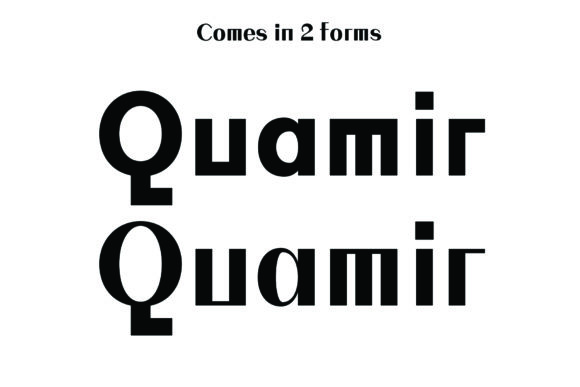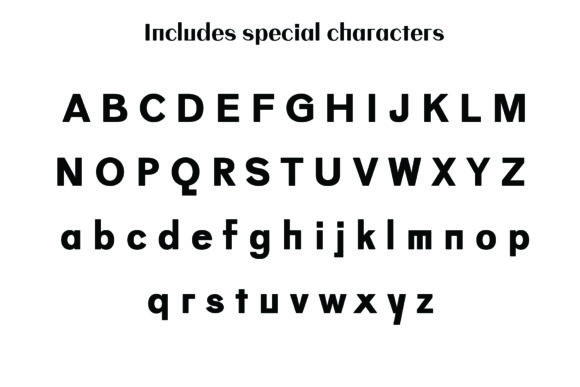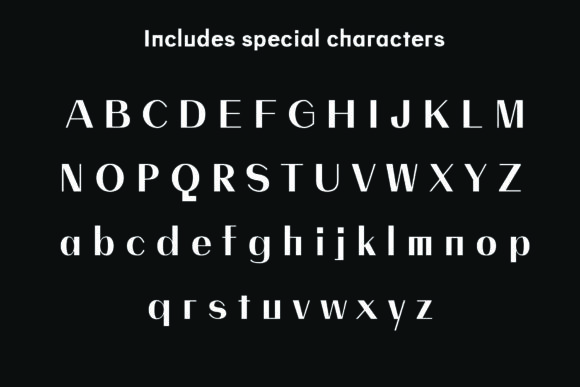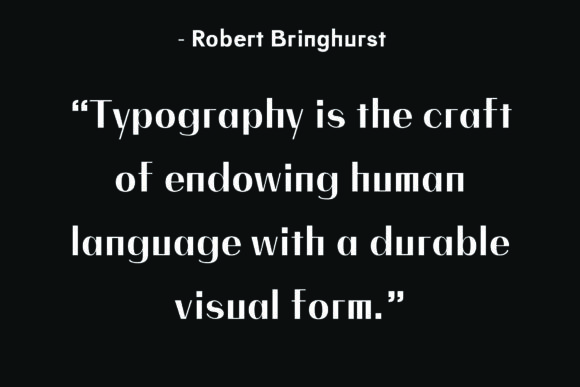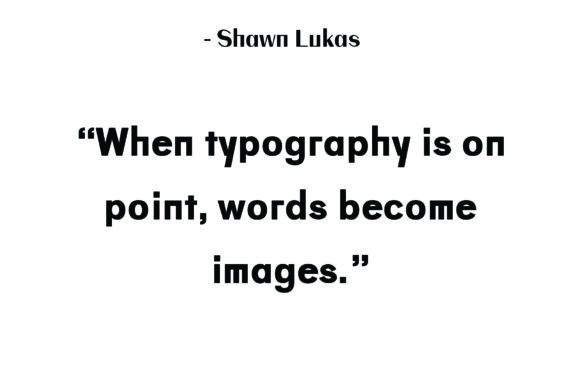
Introduction to Quamir Font Font
Fonts play a crucial role in design, and the Quamir Font font is a typeface that brings both character and versatility to any project. Whether you’re working on a branding project, a website, or a print design, the Quamir Font font offers a unique style that can elevate your work.
Quamir is a edgy and blocky sans serif font with a cool feel.
Key Features of Quamir Font Font
Why Choose Quamir Font Font?
The Quamir Font font is more than just a typeface – it’s a design tool that helps you communicate your message with style and clarity. Its unique character set and versatile design make it suitable for a wide range of applications, from elegant invitations to bold headlines.
With its carefully crafted letterforms and balanced proportions, the Quamir Font font ensures readability and visual appeal across all mediums.
What makes Quamir Font font special?
The Quamir Font font stands out with its unique design, exceptional readability, and versatility across various design applications.